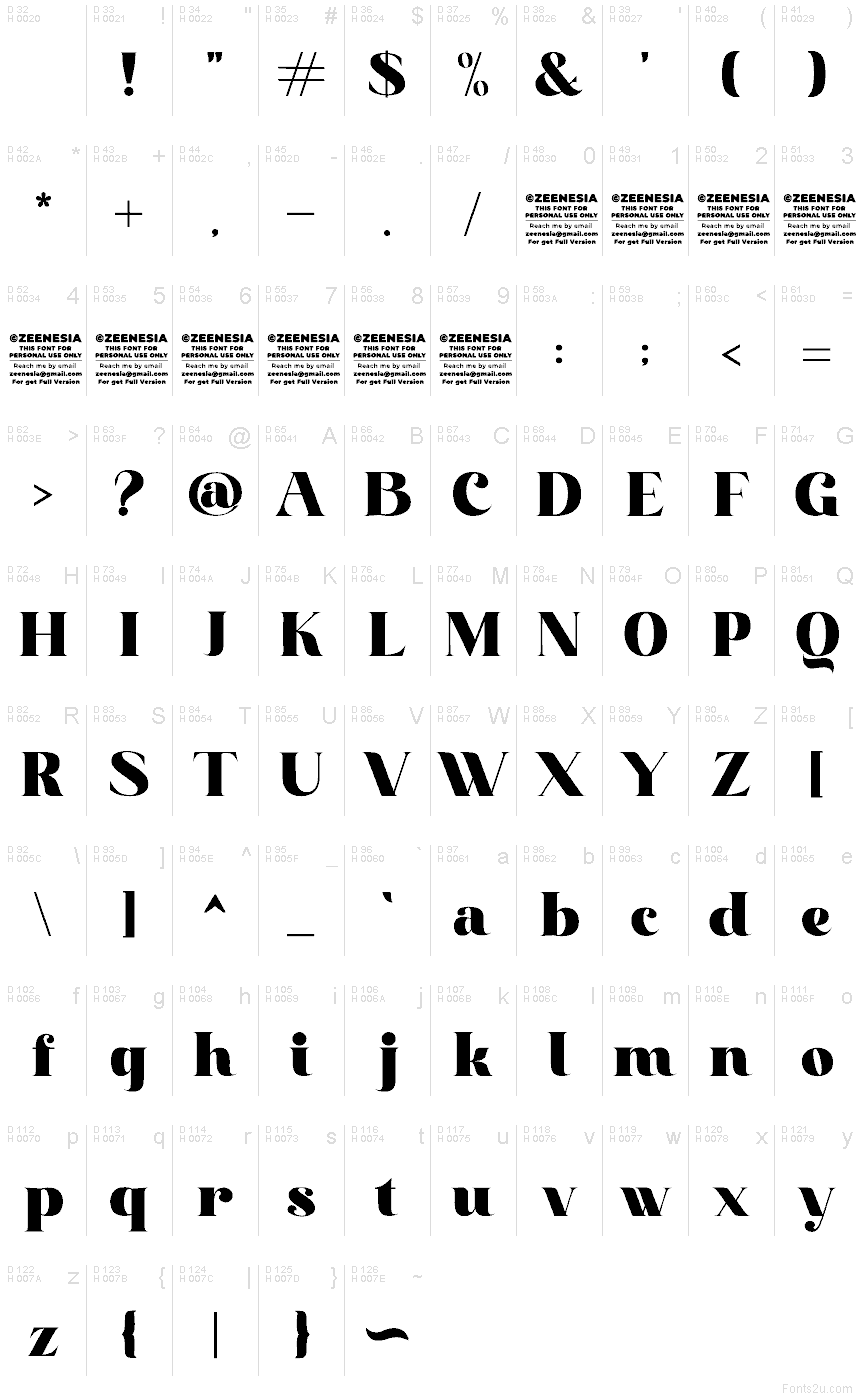
Maghie Personal Use Only
Maghie by Zeenesia Studio is a free bold serif font. It stands out with voluptuous ball terminals, crisp vertical stress, and tight, sculpted curves that catch the light like polished ink. The thick-to-thin rhythm feels luxurious without getting fussy, so headlines arrive with drama while staying readable. Those compact counters and clipped serifs give it a modern swoop that feels both editorial and boutique.
Using Maghie, you’ll shine on beauty branding, magazine covers, luxury packaging, posters, invitations, and high-end logos. The dramatic contrast rewards large sizes; add a touch of tracking for a breathier, fashion-forward look. For copy, pair this free font with a clean, neutral grotesk sans to let Maghie’s forms do the talking.